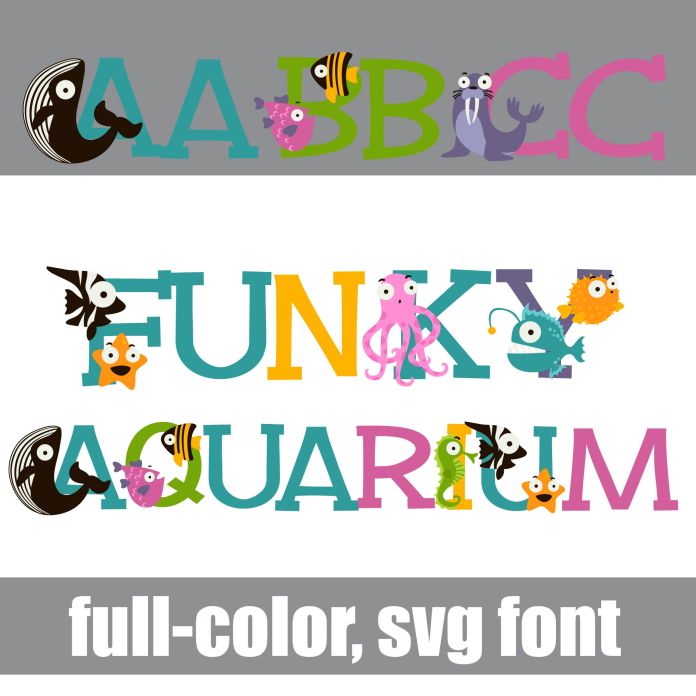
This full-color font features underwater animals and fish found at an aquarium. There is an alternate upper and lowercase in different colors without animals to help you keep your work creative looking. Access it through your system's character map or the glyph map in Silhouette Studio. This font works best for titles, displays, posters and more. Please note color fonts will show as black in non compatible programs. This font type is compatible with Silhouette Studio